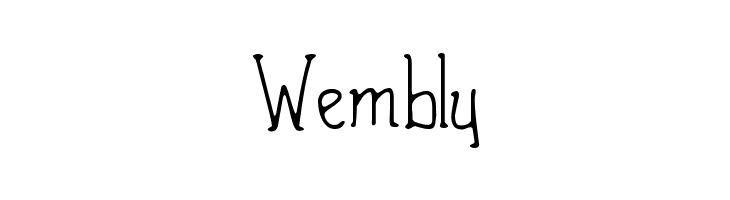
QueenXylophia-Regular Font
( Fonts by Cumberland Fontworks - http://www222.pair.com/sjohn/fonts.htm - S. John Ross )
A playful, hand-drawn font with a whimsical and casual style.